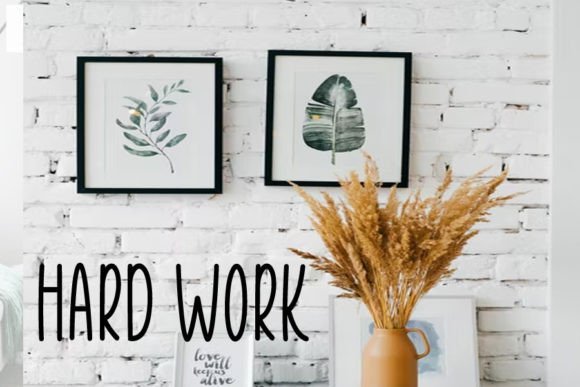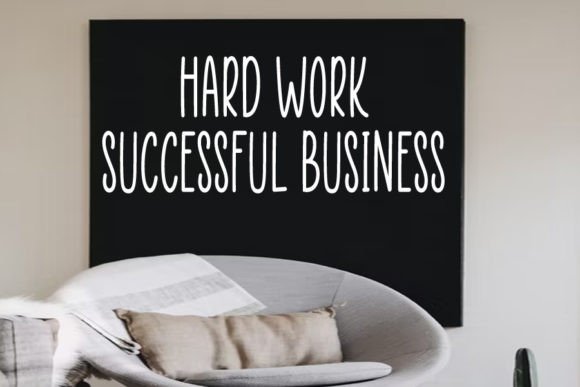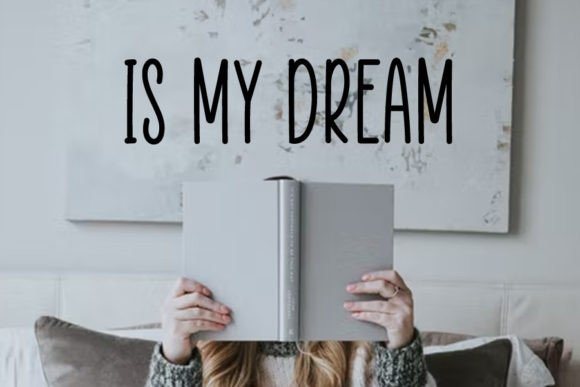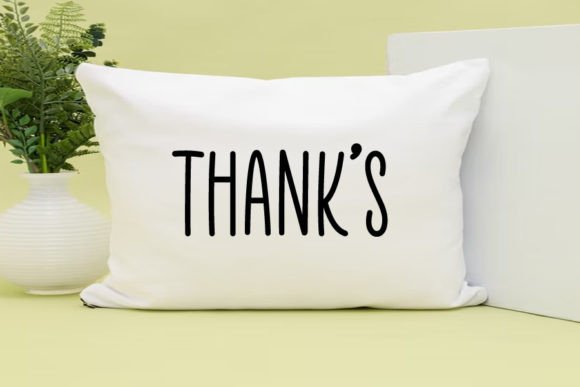
Introduction to Homebase Font
Homebase is a fresh and beautiful font good for your design purposes such as Youtube banners, Cover Logo Mockups, Wedding Invitations, Id Cards, Flayer, and Crafts.
By using this font, your business will progress and develop Apart from that, this font is simple and unique.
Homebase Font offers exceptional quality and versatility, making it a valuable addition to your design toolkit. Whether you’re creating for personal projects or commercial use, Homebase Font delivers professional results.